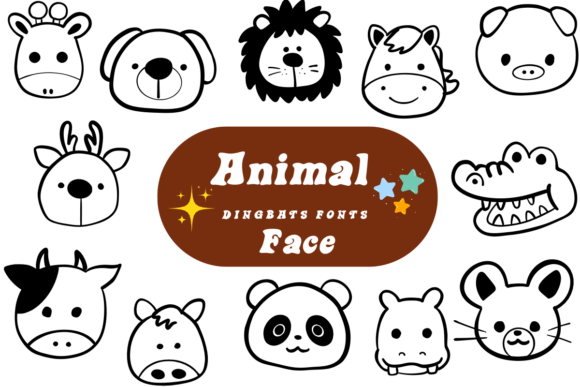
Introducing Animal Face Font: The Cute Dingbats Font for Creative Projects
Are you a designer, crafter, or DIY enthusiast looking for a unique and playful font to add some personality to your creative projects? Look no further than Animal Face Font, a delightful dingbats font that’s sure to bring a smile to your face. In this article, we’ll explore the features and benefits of Animal Face Font, and show you how to incorporate it into your designs.
What is Animal Face Font?
Animal Face Font is a charming dingbats font that features adorable animal faces, perfect for adding a touch of whimsy to your creative projects. The font includes a range of cute and expressive animal faces, from happy cats and dogs to curious monkeys and more. With its playful and eye-catching designs, Animal Face Font is ideal for a variety of projects, including greeting cards, invitations, posters, and social media graphics.
Key Features of Animal Face Font
• Cute and Playful Designs: Animal Face Font features a range of adorable animal faces that are sure to delight your audience.
• High-Quality Graphics: The font includes high-quality graphics that are perfect for printing and digital use.
Benefits of Using Animal Face Font
So why choose Animal Face Font for your creative projects? Here are just a few benefits of using this delightful dingbats font:
• Add Personality to Your Designs: Animal Face Font allows you to add a touch of personality and whimsy to your designs, making them stand out from the crowd.
• Perfect for Kids’ Projects: The font’s cute and playful designs make it perfect for kids’ projects, such as children’s books, nursery decor, and kids’ party invitations.
• Easy to Pair with Other Fonts: Animal Face Font pairs well with a range of other fonts, making it easy to incorporate into your existing design workflow.
Tips and Inspiration for Using Animal Face Font
Need some inspiration for using Animal Face Font? Here are a few tips and ideas to get you started:
• Use it for Kids’ Party Invitations: Create adorable kids’ party invitations featuring the Animal Face Font and a range of cute animal graphics.
• Create a Children’s Book: Use Animal Face Font to create a charming children’s book featuring a cast of lovable animal characters.
• Add it to Your Social Media Graphics: Use Animal Face Font to add a touch of personality to your social media graphics, such as Facebook posts and Instagram stories.
Animal Face Font is a delightful dingbats font that’s perfect for designers, crafters, and DIY enthusiasts looking to add some personality to their creative projects. With its cute and playful designs, easy-to-use format, and commercial use license, Animal Face Font is a great choice for a wide range of projects. So why not give it a try and see the results for yourself?